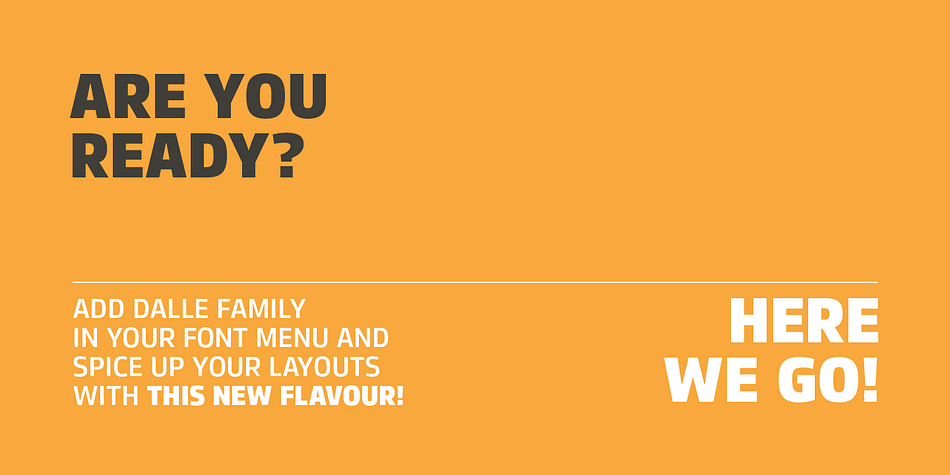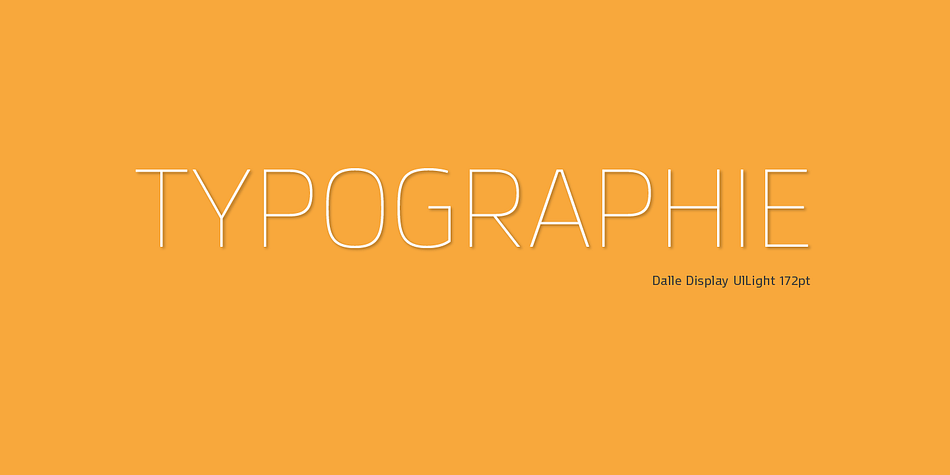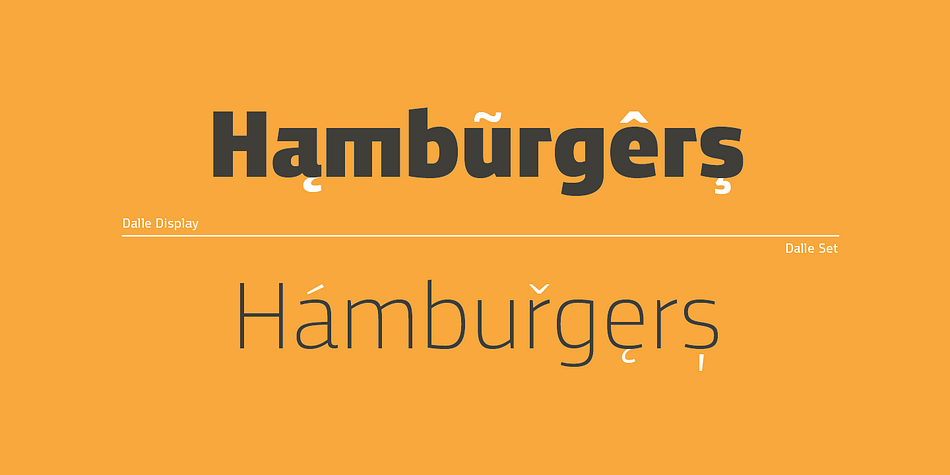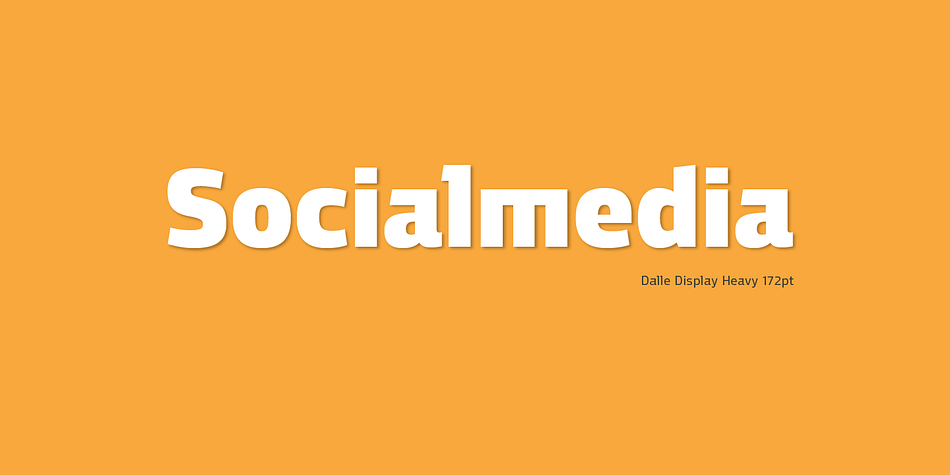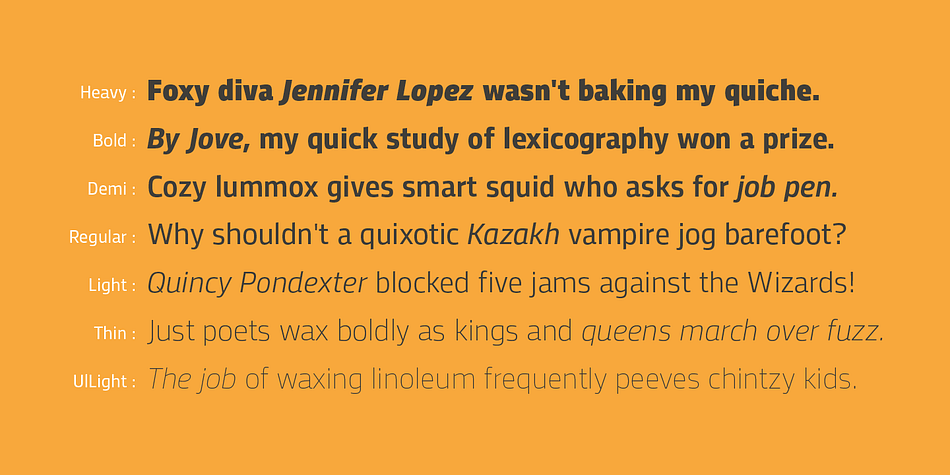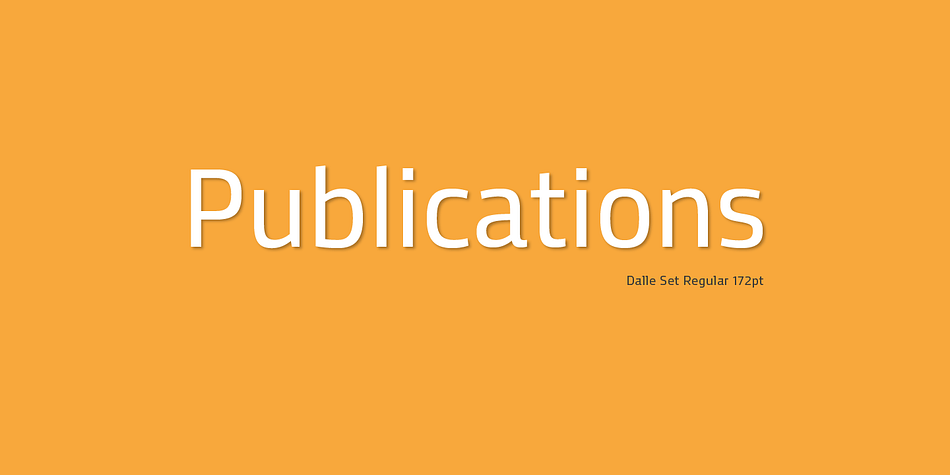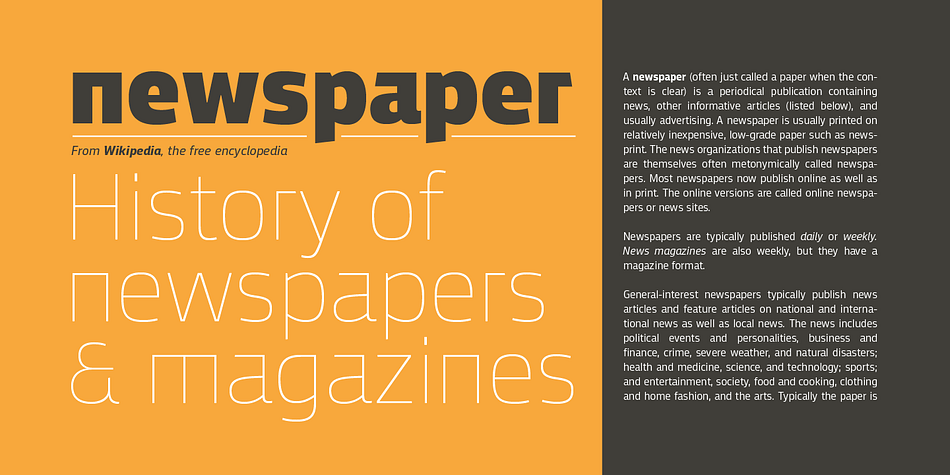
Dalle is a sans serif and display sans font family. This typeface has twenty-eight styles and was published by Stawix.
Dalle was designed in 2012 by Stawix Ruecha. It has been continually developed over the last two years in order to keep pace with the changing trends and to apply it to different uses.
Dalle comes with a large font family and is ideally suited for body texts and as well display. This typeface has OpenType features including multi-ligatures support and tabular figures.